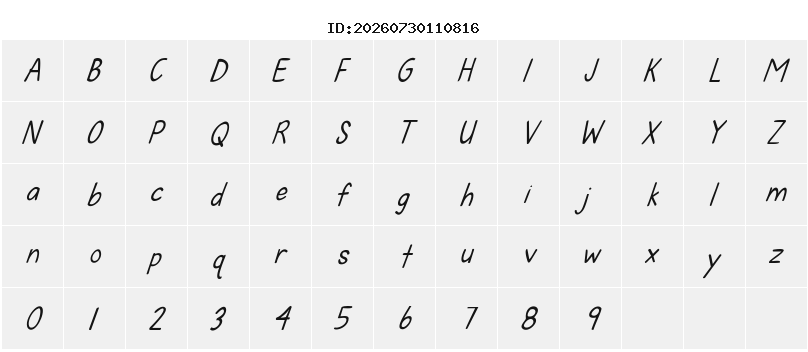
KG Fall For You Preview
• Font Name: KG Fall For You
• Font ID: KimberlyGeswein: KG Fall For You Italic: 2011
• Full Font Name: KG Fall For You Italic
• Version: Version 1.000 2011 initial release
• PostScript Name: KGFallForYou-Italic
• Character Count: 324
• Designer: Kimberly Geswein
• Manufacturer: Kimberly Geswein
About KG Fall For You.ttf
KG Fall For You.ttf is a modern, elegant sans-serif font designed for ultimate readability and visual harmony. Perfect for branding, headlines, web design, and print materials.